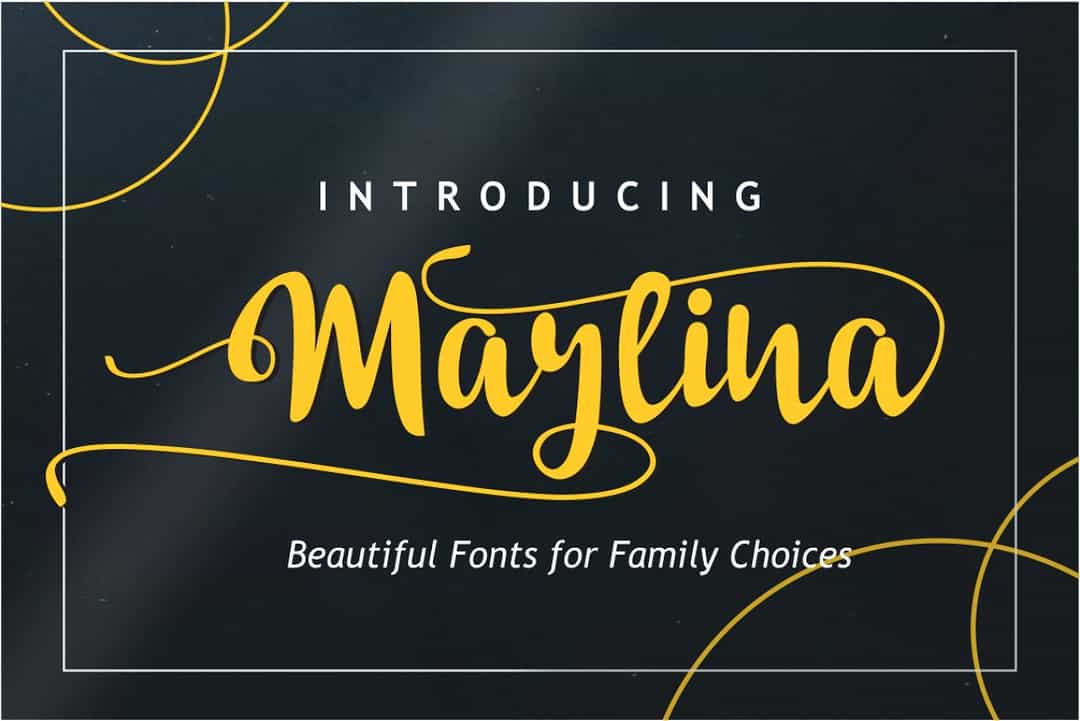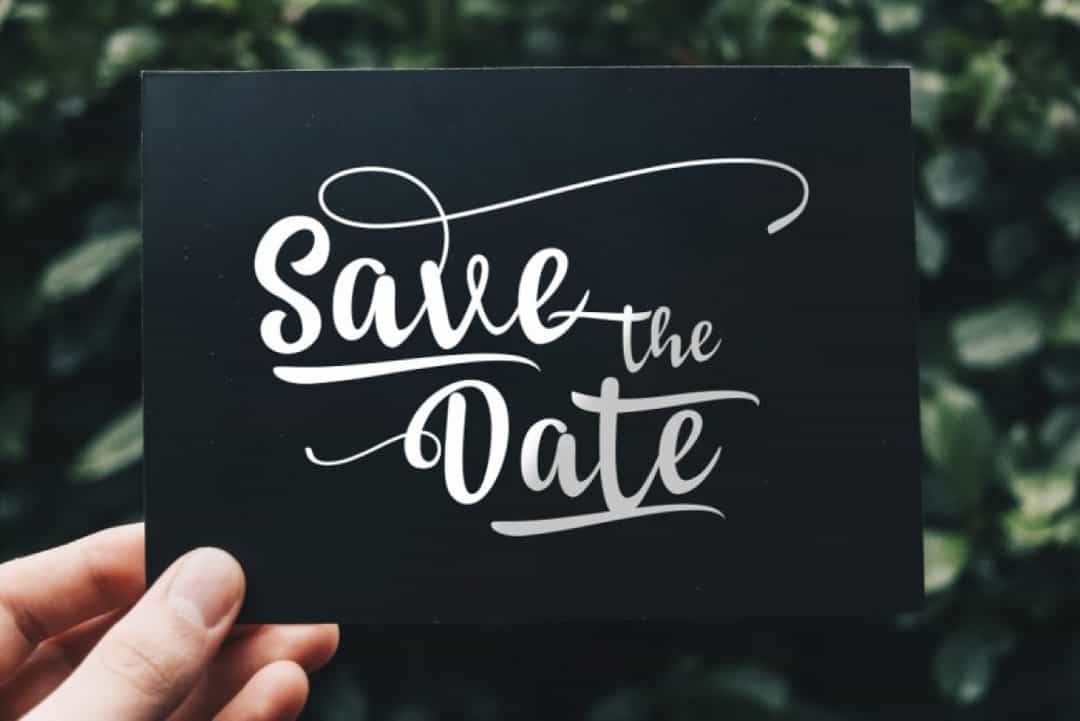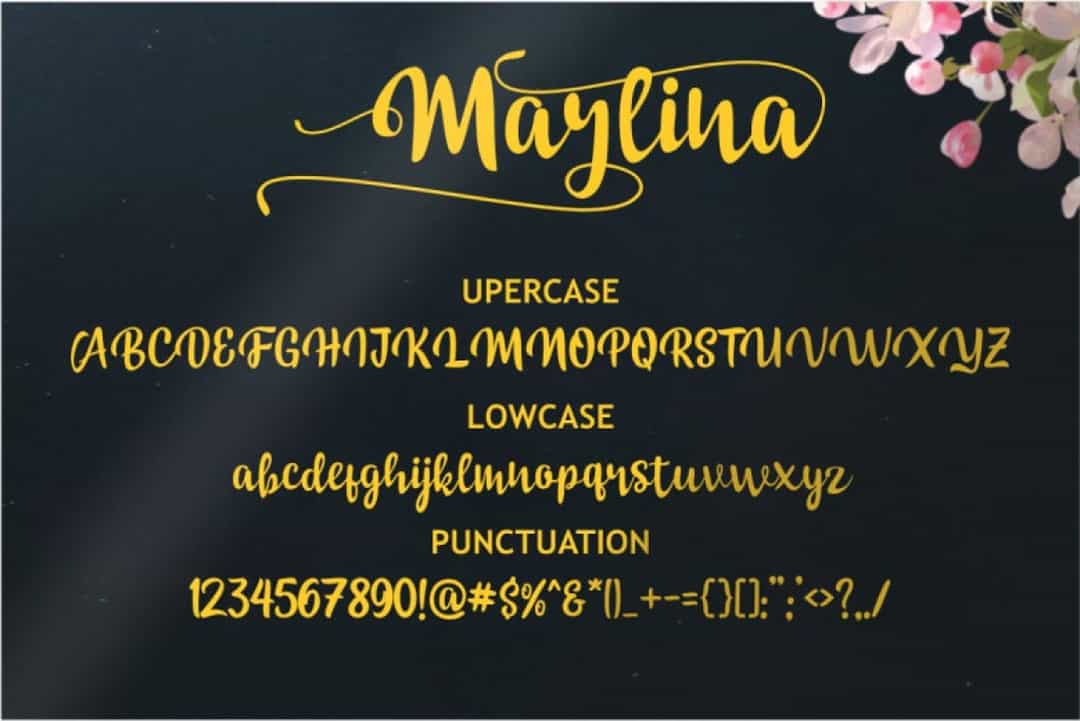
Marlina is a fancy delicate modern script font, refined and contemporary in its look and feel, best suited for signatures, branding for weddings, advertising, labelling goods, and much more. This one comes complete with the upper case punctuation marks, figures and the alphabet letters as well as the other special symbols.